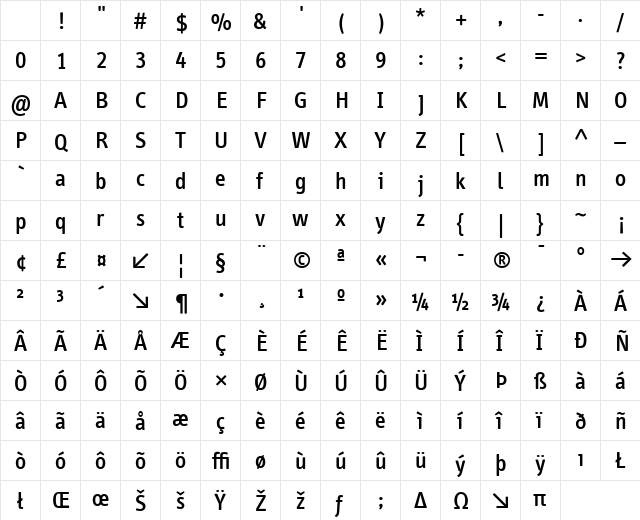
Complete Info Medium glyph index. Displaying only characters natively supported by Info Medium font.
Info is a composed and adaptable typeface that performs quietly and consistently across a wide range of design contexts.
Who designed the Info Medium font?
This font was published by Erik Spiekermann, Ole Sch fer, . Published by FontShop International FontFont release. Check the technical specs section for copyright and designer details.